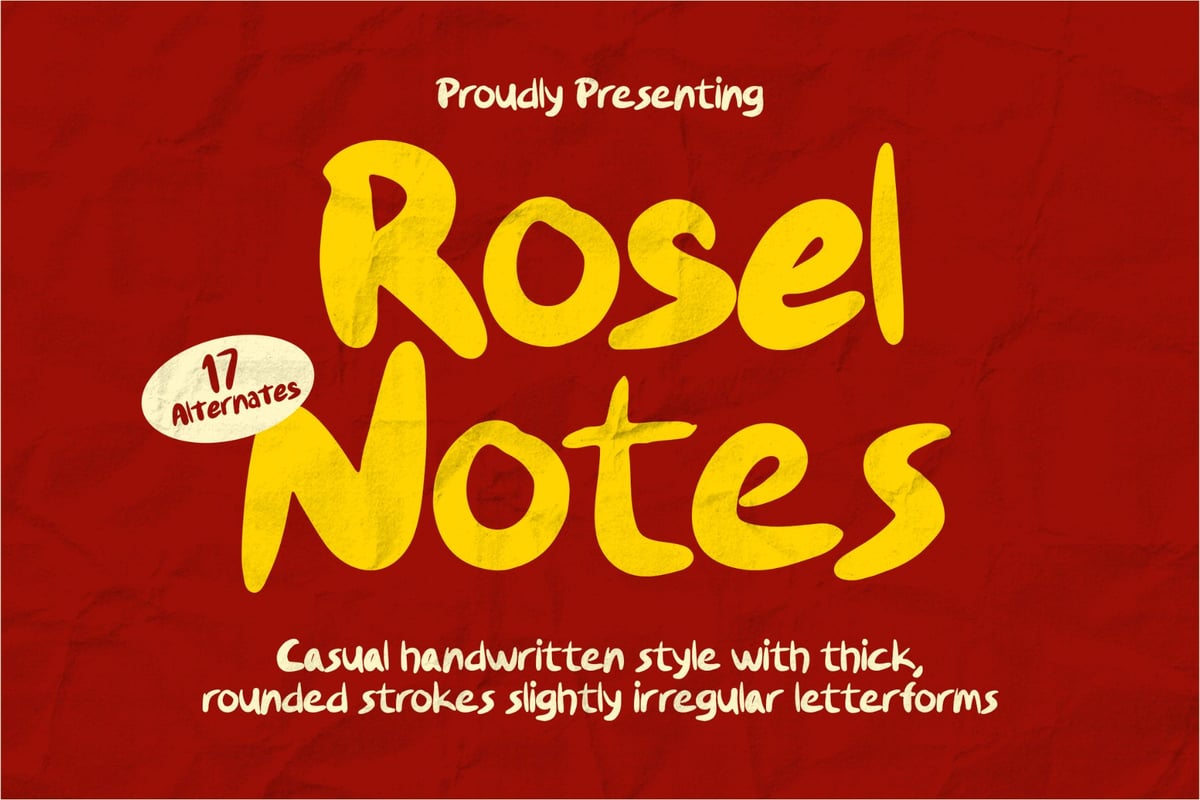
Rosel Notes - Casual Handwritten Font
Rosel Notes brings warm, effortless handwriting to your designs with natural letterforms and authentic character.
Rosel Notes is a casual handwritten typeface crafted to capture a natural, friendly, and effortless writing style. Smooth strokes, relaxed curves, and genuine handwritten letterforms give this font a personal, approachable feel that works beautifully across a wide range of creative projects.
Whether you're designing branding, social media graphics, invitations, packaging, or personal notes, Rosel Notes delivers warmth and charm without sacrificing clarity or readability — in both print and digital contexts.
- Casual handwritten style with natural, friendly letterforms
- Ligatures and alternates for enhanced typographic flexibility